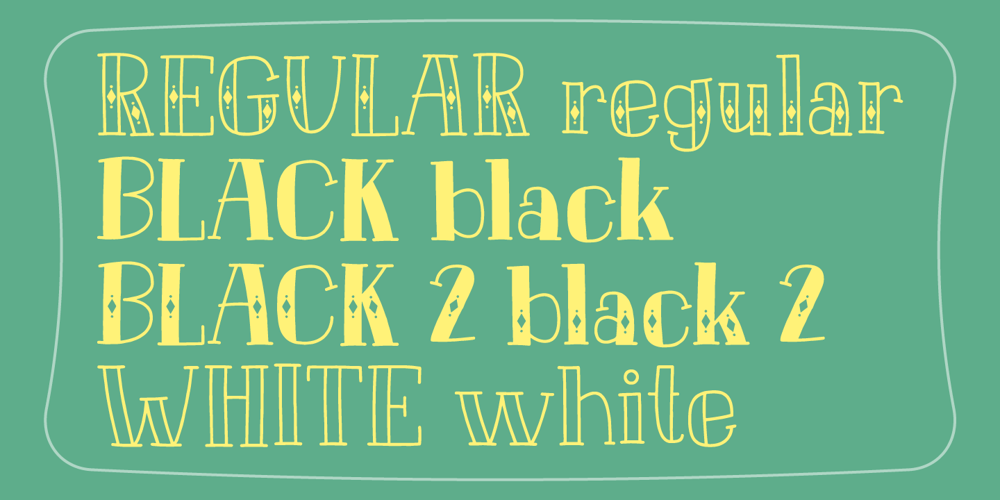
Strooilicht Font Family was designed by Jakob Fischer and published by PizzaDude.dk. Strooilicht contains 4 styles and family package options. Strooilicht is dutch and means something like diffuse light, like when you want to take a photo and the light is in your lens, seemingly coming from nowhere. At least that was what inspired me to do this font. Comes in 4 different versions that works well alone, or even better combined – just play around with the font and you’ll see!